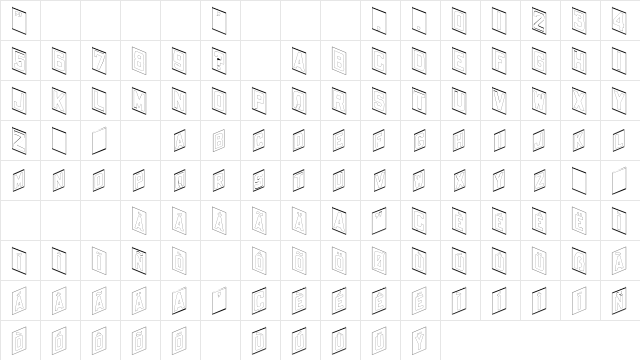
PlacecardOutline Regular
Design Context for PlacecardOutline Typeface
PlacecardOutline brings ornamental detail and strong personality to headlines and identities, where visual impact matters more than quiet functionality.
Font Pairing: Pair with a clean neutral sans-serif for body copy to let PlacecardOutline's character lead without overwhelming the composition.
Pro Tip: Treat PlacecardOutline as the centrepiece of your typographic hierarchy. One strong heading set in a decorative face can carry an entire layout.